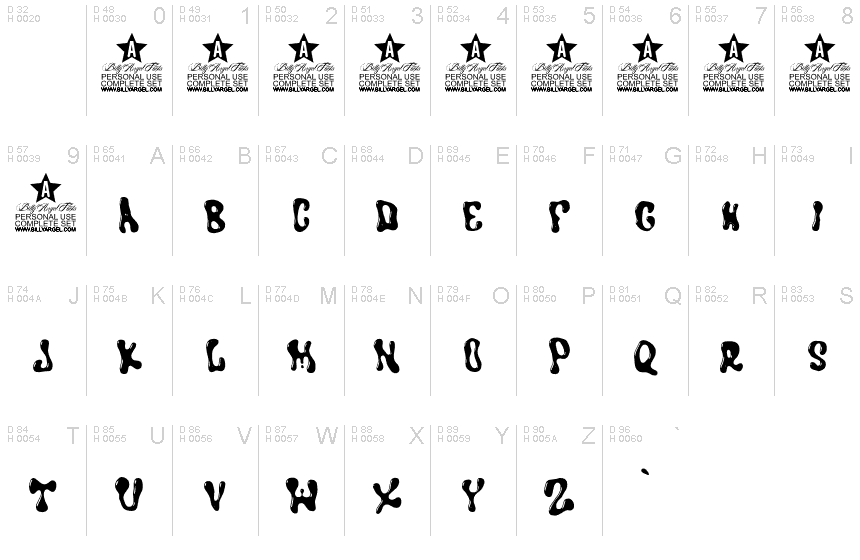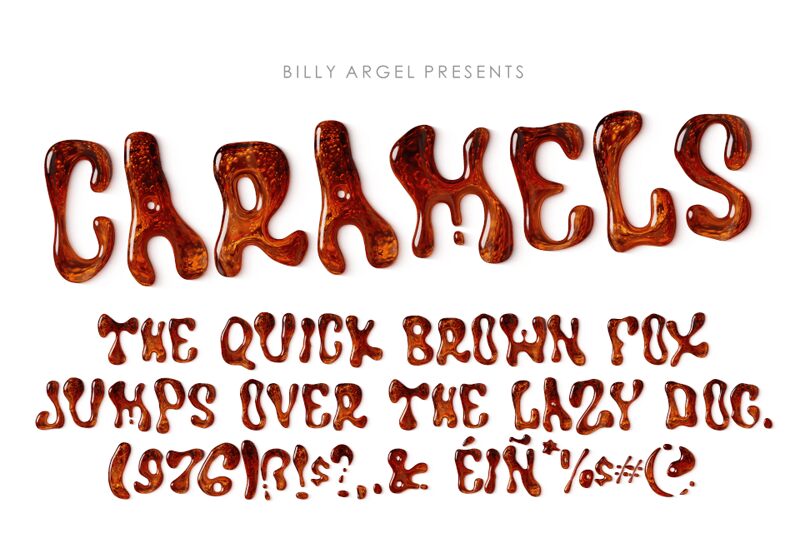
CARAMELSPERSONALUSE-Regular
Caramels, crafted by Billy Argel Fonts, stands out as a playful and expressive display font that effortlessly embodies a groovy aesthetic. With its semi-bold weight and semi-condensed width, this typeface presents a delightful visual rhythm that's both bold and inviting. The fluidity of Caramels' letterforms mirrors the sweet flow of its namesake, suggesting creativity and fun.
The font's distinct curves and clever use of negative space make it an excellent choice for projects looking to convey a sense of retro charm or contemporary flair. Whether it graces the cover of a music album, headlines on thematic posters, or titles in digital media, Caramels is poised to add a unique touch with its stylishly whimsical character.
Embracing the combination of vintage vibes with modern design sensibilities, Caramels is versatile enough to elevate branding efforts or add personality to editorial content. Its visual appeal lies in its ability to captivate audiences while maintaining legibility — an essential factor for any display font aiming to make an impact.